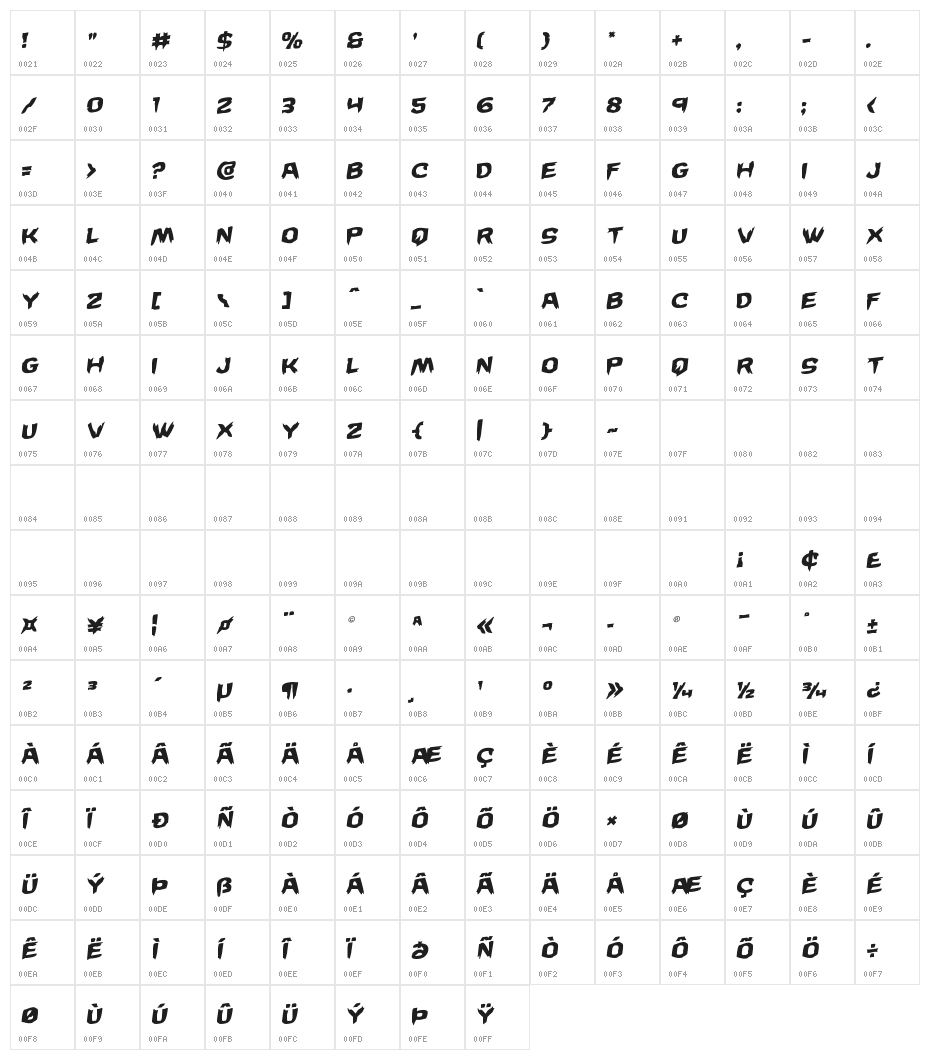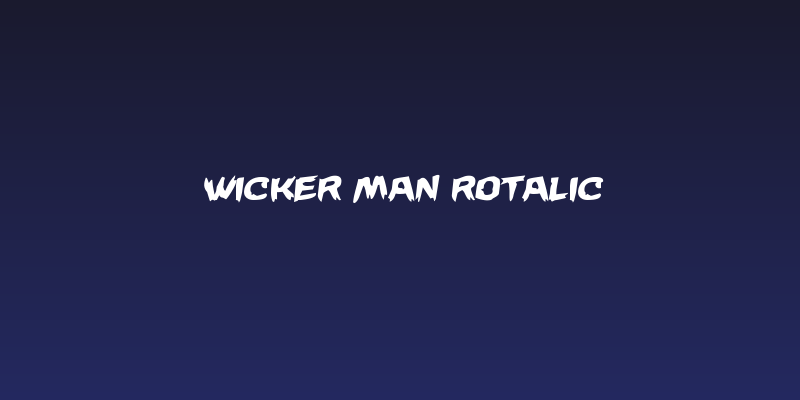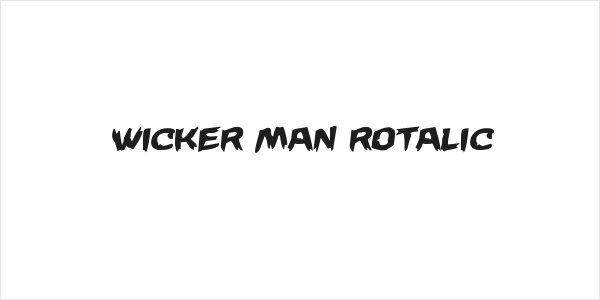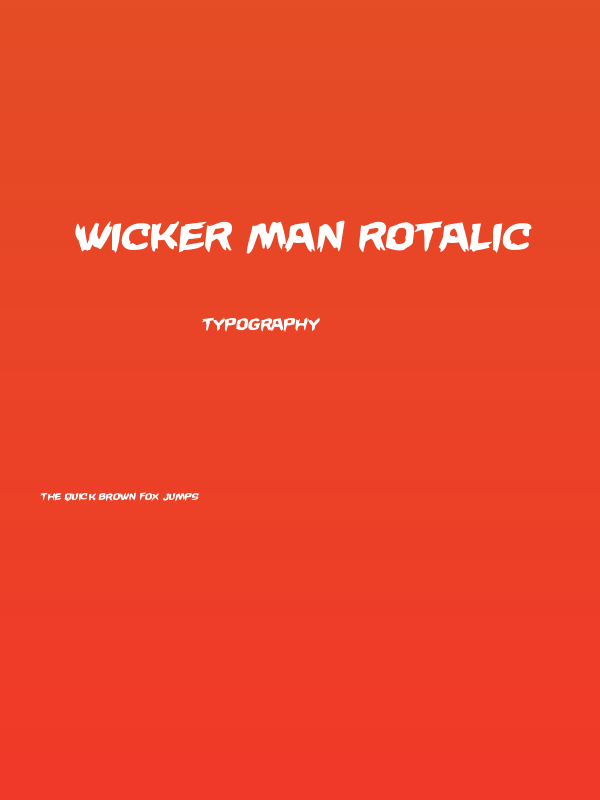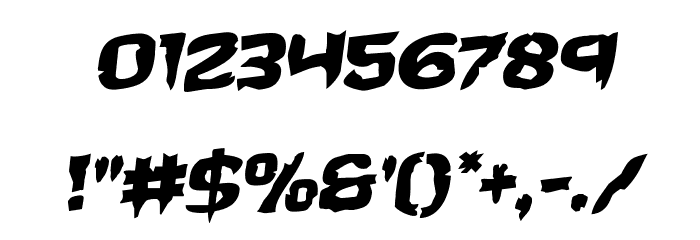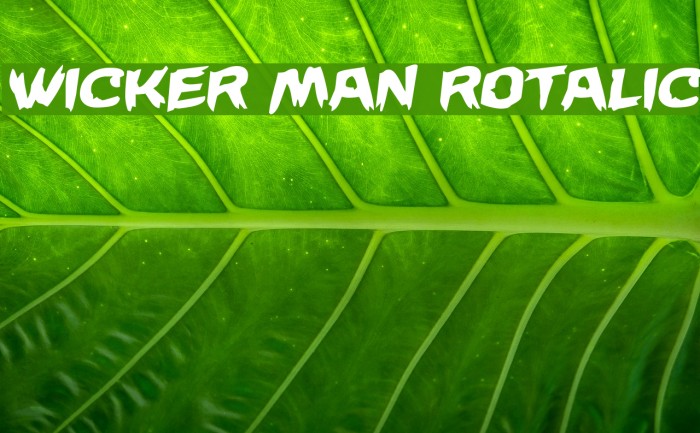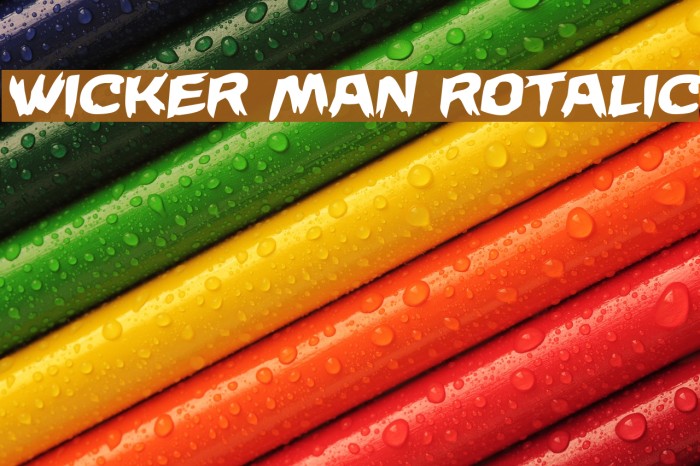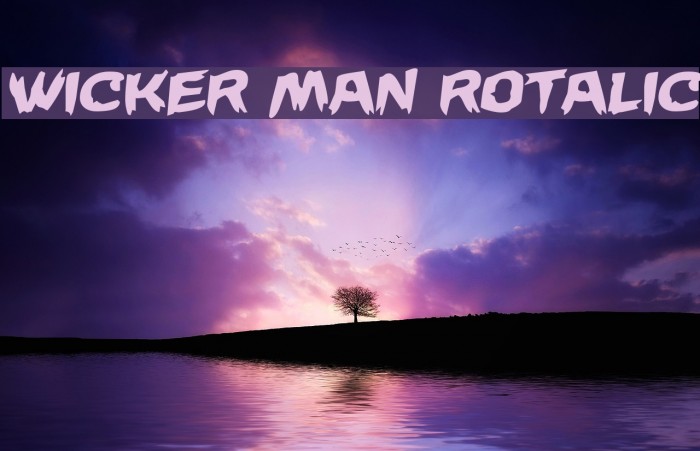
Wicker Man Rotalic Font
Wicker Man Rotalic Description
This font features a bold and dynamic design with sharp, angular edges and a slightly italicized slant, giving it a sense of movement and energy. The characters are thick and robust, with a jagged, almost aggressive appearance that makes it stand out. The uppercase and lowercase letters maintain a consistent style, while the numbers and special characters are crafted to match the overall aesthetic. This font is ideal for projects that require a strong visual impact, such as posters, logos, and headlines. Its unique style is reminiscent of graffiti or street art, making it suitable for modern and edgy designs.
WICKER-MAN-ROTALIC UPPERCASE
WICKER-MAN-ROTALIC LOWERCASE
WICKER-MAN-ROTALIC OTHER CHARS
| Overall Style | Modern, Edgy |
| Proposed Projects | Posters, logos, headlines, street art-inspired designs. |